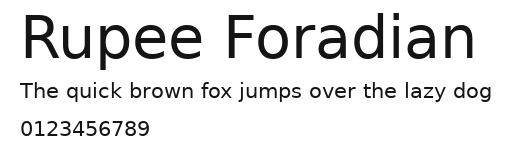
Rupee Foradian Preview
About Rupee Foradian.ttf
Rupee Foradian.ttf is a modern, elegant sans-serif font designed for ultimate readability and visual harmony. Perfect for branding, headlines, web design, and print materials.